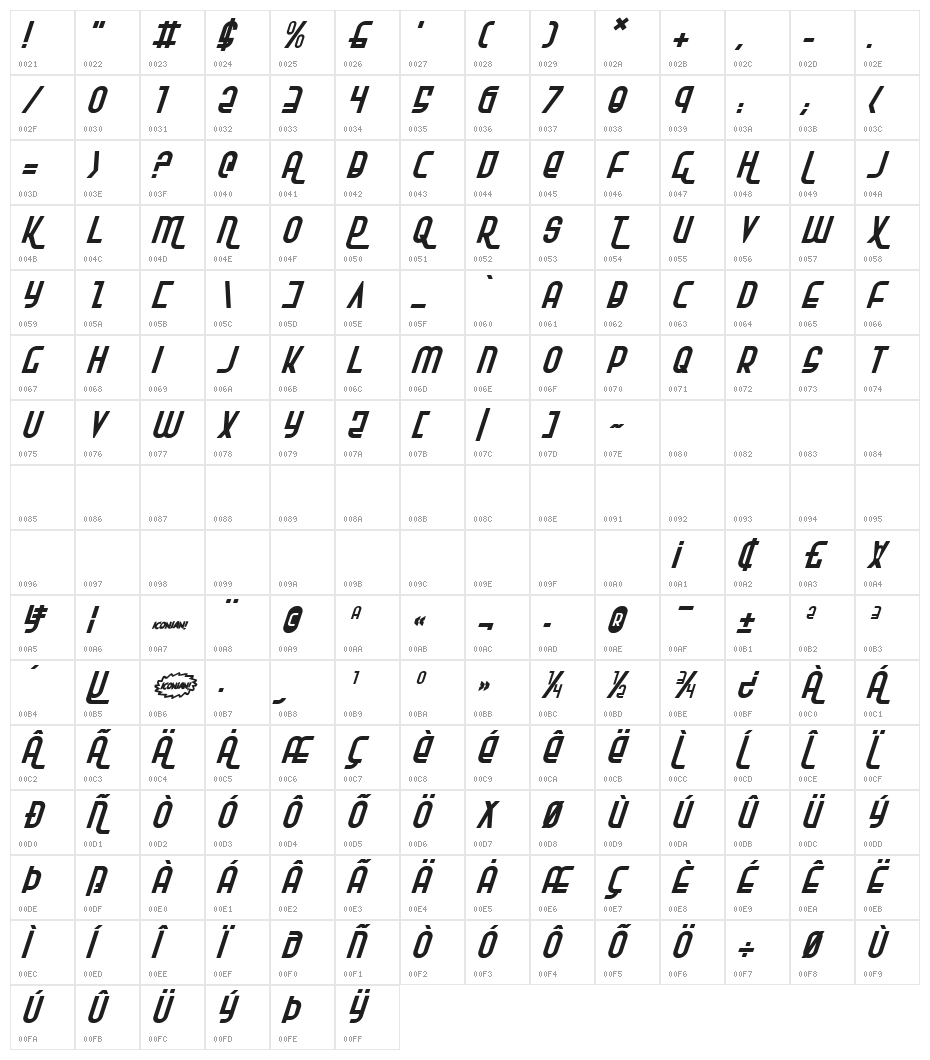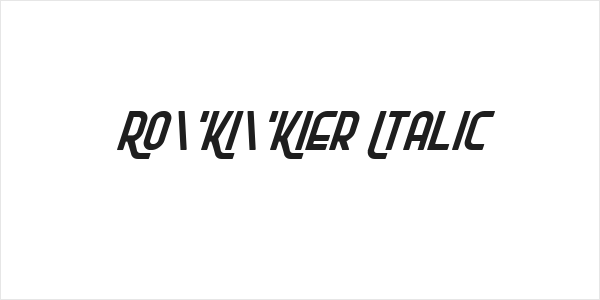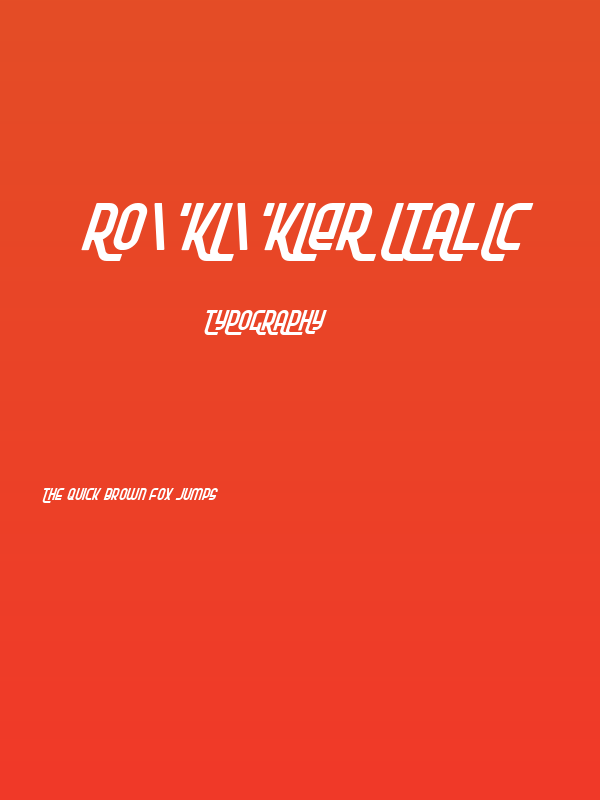
Ro'Ki'Kier Italic Font
Ro'Ki'Kier Italic Description
This font features a dynamic and modern design with a strong italic slant, giving it a sense of motion and energy. The characters are bold and angular, with a futuristic aesthetic that is both sleek and assertive. The uppercase and lowercase letters maintain a consistent style, with sharp edges and a uniform stroke width that enhances readability. The numerals are equally bold, ensuring they stand out in any context. Special characters are designed with the same attention to detail, providing a cohesive look across all glyphs. This font's unique style makes it ideal for projects that require a contemporary and impactful visual presence.